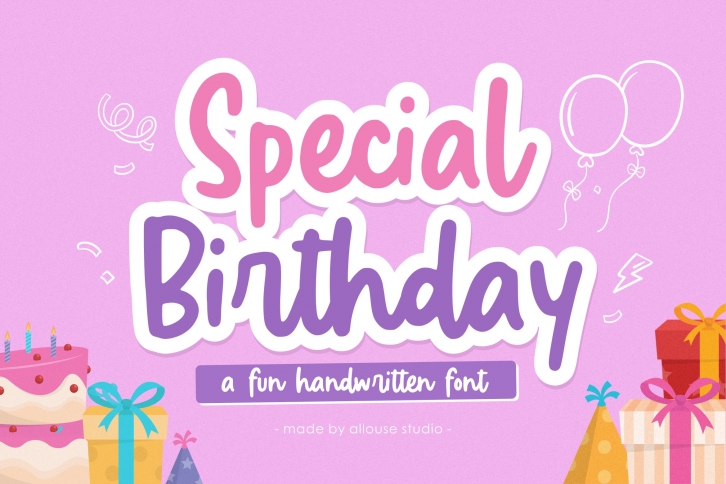
Special Birthday is a great font that was designed by Allouse Studio. Imagine the amount of combinations you can create using this font! The archive is 18.6 MB and it was released on November 3, 2022. Special Birthday looks beautiful on wedding invitations, greeting cards, logos, posters, labels, t-shirt designs, logos, business cards and is perfect for use in ink or watercolor works, fashion, magazines, packaging and food menus, children's books and more!